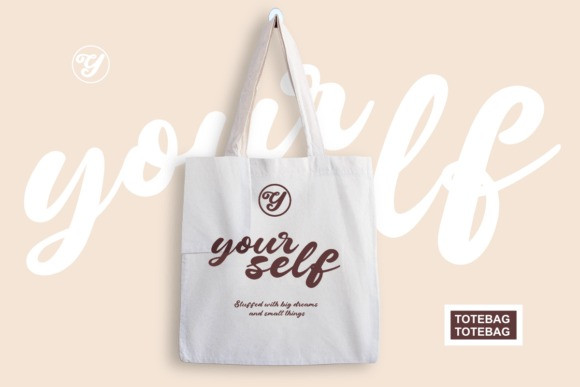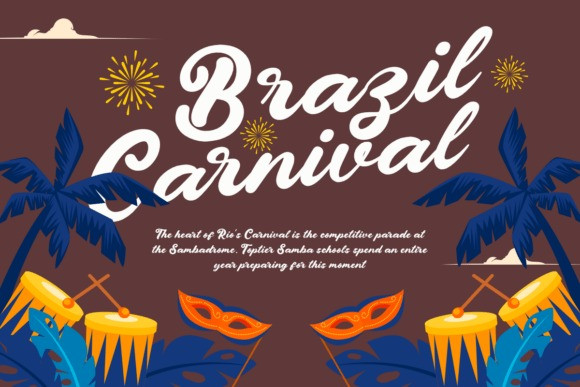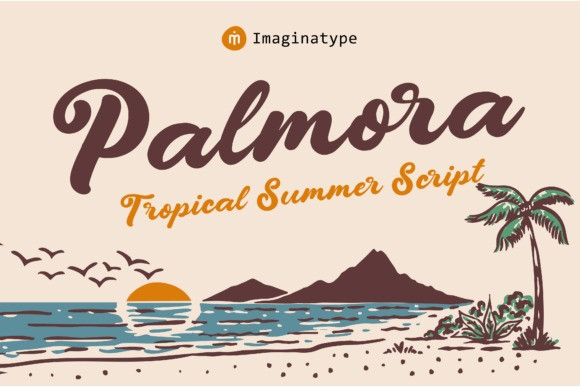
Palmora Font
Palmora Font a bold and bouncy retro script typeface. Inspired by the golden age of travel posters, 60s surf culture, and hand-painted coastal signage, Palmora brings an instant sense of nostalgia and “good vibes” to any canvas.
Designed as a versatile display font, Palmora features a creamy, handwritten texture that is perfect for impactful branding and logo design. Its bold weight and smooth connections make it an exceptional choice for vintage packaging, whether for organic coffee bags or tropical food labels. As a quintessential summer font, it captures the 70s aesthetic and mid-century charm, making it ideal for apparel design, t-shirt prints, and merchandise.
Whether you are creating a retro poster for a music festival, a tropical flyer, or eye-catching social media headers, this nostalgic script ensures high readability and style. Palmora is more than just a beach font, it is a complete tool for designers seeking a playful, organic, and elegant script to elevate their creative projects.